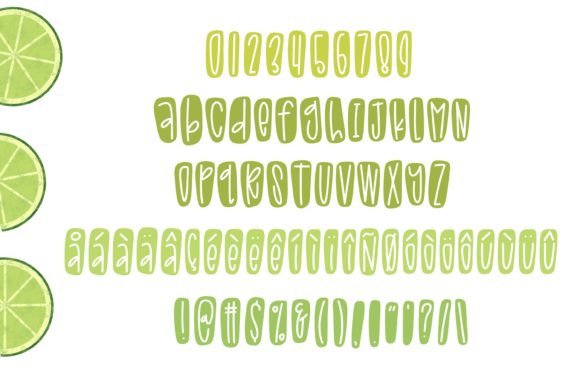
Tartlime is a fresh and lively decorative font inspired by the zestiness of citrus fruits. With its bold, playful letterforms and vibrant style, Tartlime is perfect for projects that need a burst of energy and fun. Ideal for branding, product packaging, invitations, posters, and more, this font adds a delightful, summery feel to any design. Its quirky shapes and bold personality make it great for use in creative endeavors where a light-hearted, joyful tone is desired.